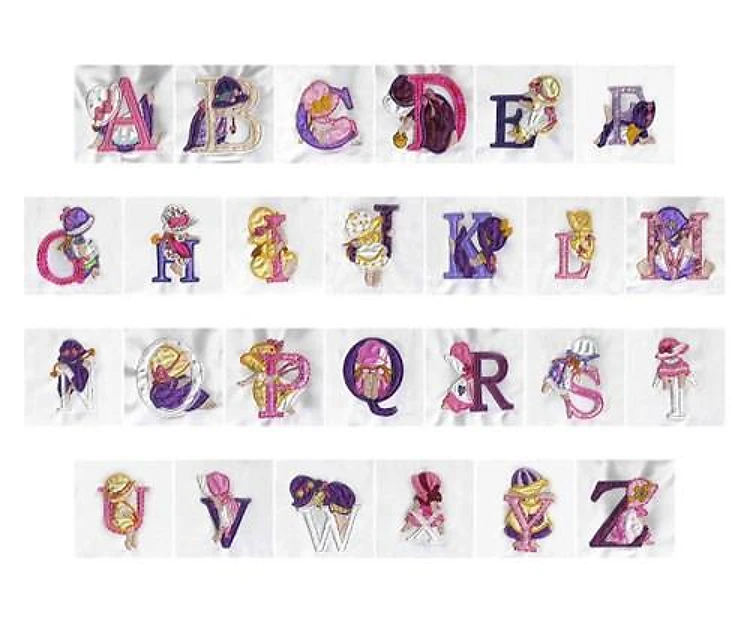
Applique Sunbonnet Alphabet Embroidery Font - Colorful Applique Style with Whimsical Characters - Home Format - PES, DST & 6 formats by Daydream Designs and other embroidery fonts available at EmbroideryDesigns.com.